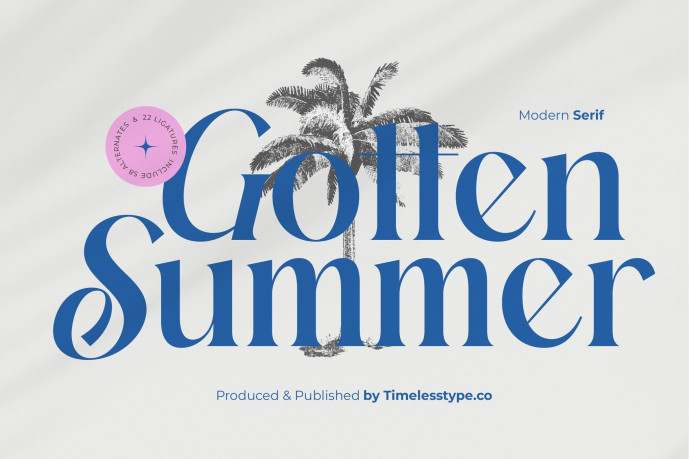
Gotten Summer Font
Gollen Summer Font is a modern serif font that embodies elegance, warmth, and refined simplicity. With 58 alternates and 22 ligatures, this typeface brings a sophisticated charm perfect for branding, packaging, magazine titles, and editorial layouts that need a stylish and timeless touch.
Inspired by the relaxed luxury of summer aesthetics, Gollen Summer combines smooth curves, confident strokes, and classic proportions to create a versatile font for both modern and vintage design concepts. Perfect for projects that aim to capture sophistication with a breezy, contemporary vibe.